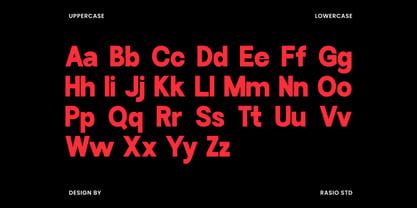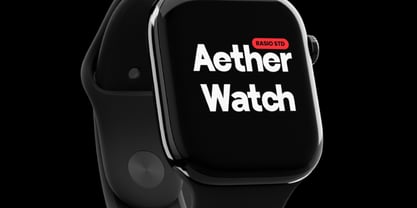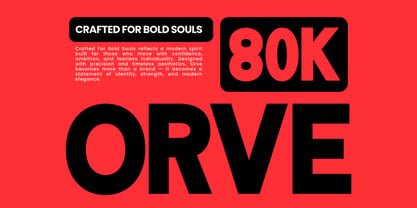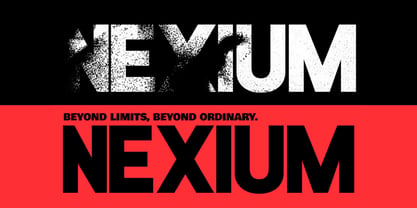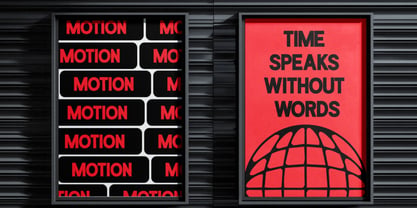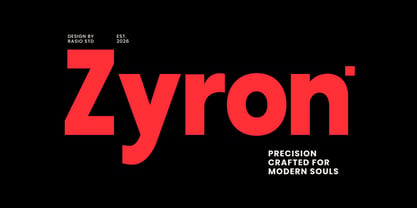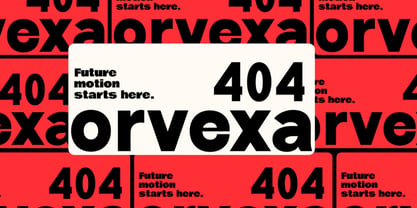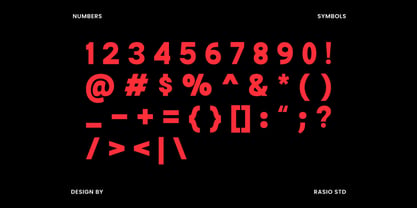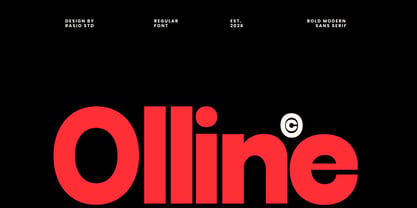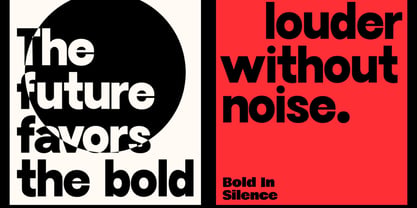
Olline
by Rasio Studio
The Olline Font Family was designed by Fajar Indra and published by Rasio Studio. Olline contains 1 styles. More about this family
Olline is a bold modern sans serif font with strong geometric construction, clean curves, and powerful visual presence. The typeface features uppercase, lowercase, numerals, punctuation, crafted for impactful headlines and contemporary branding. Its thick strokes and minimal structure create a confident modern aesthetic while maintaining excellent readability across digital and print layouts.
Relevance & Use Cases is highly relevant for modern branding, corporate identity, editorial headlines, technology campaigns, posters, packaging, website headers, and digital advertising. Its bold geometric style makes it perfect for projects that require a clean, confident, and contemporary visual impact.
Designers: Fajar Indra
Foundry: Rasio Studio